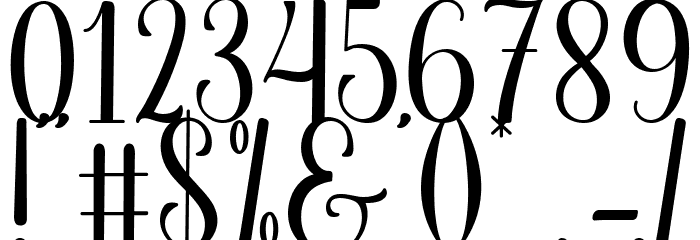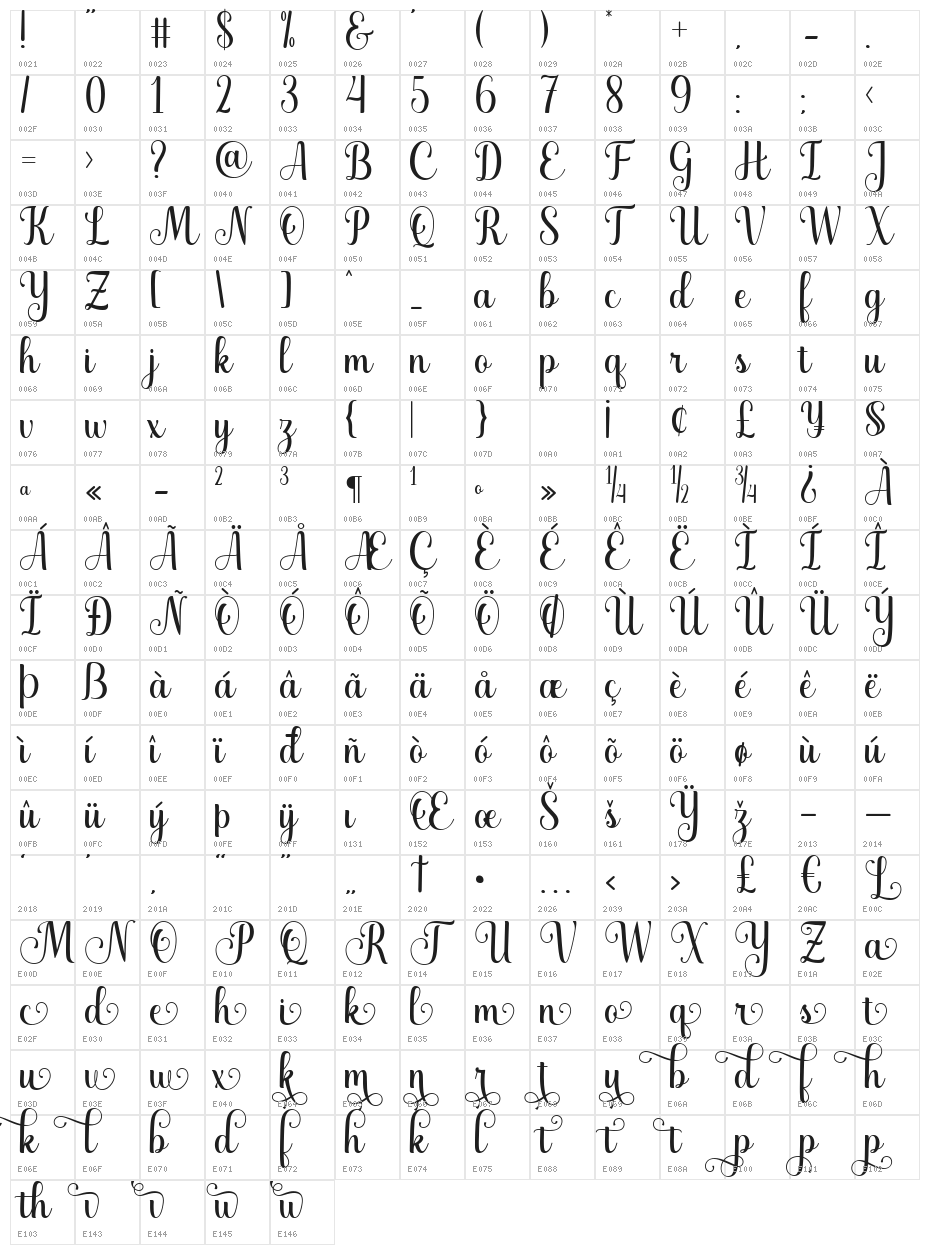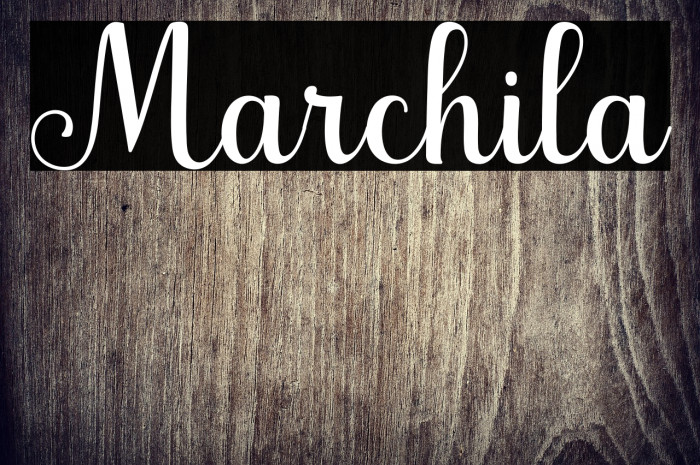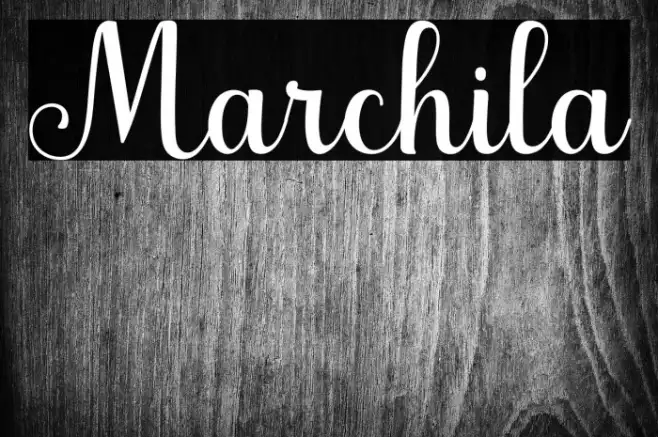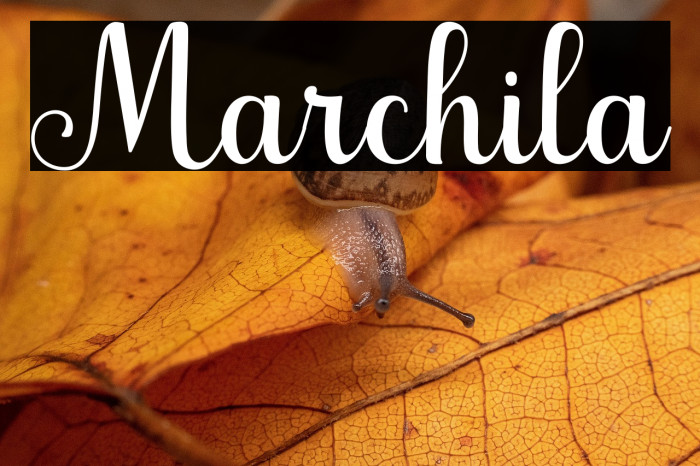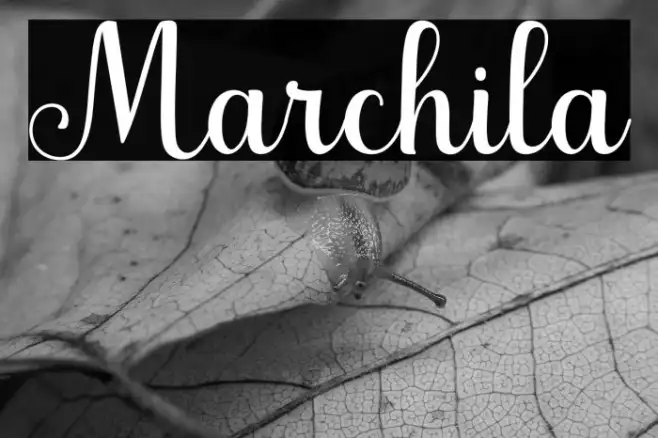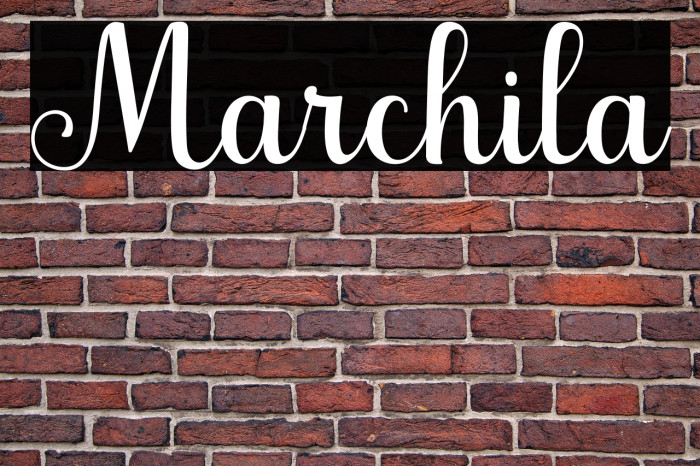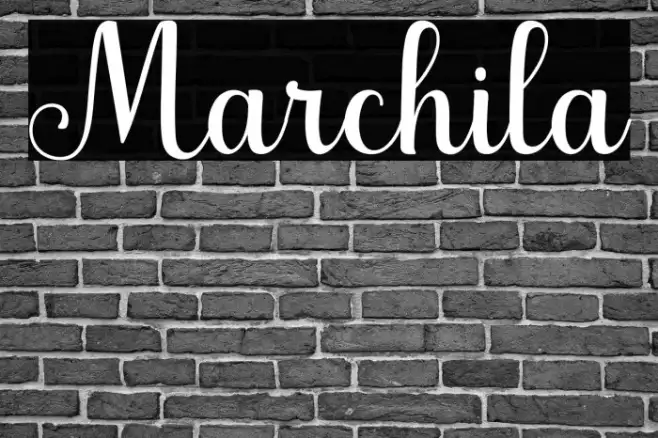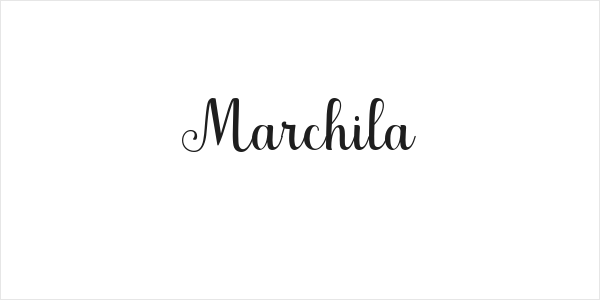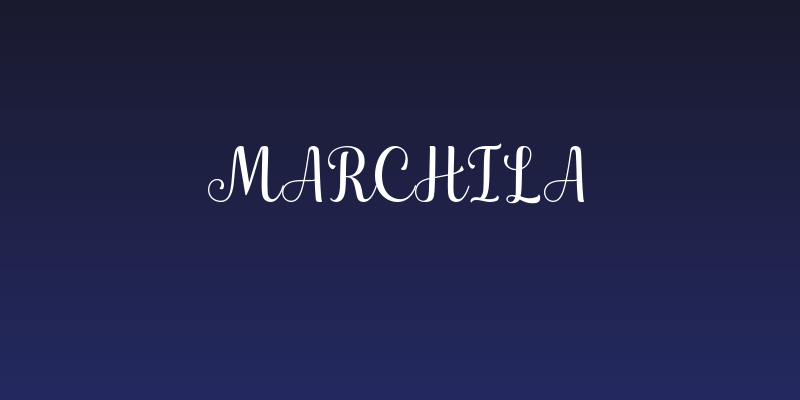
Marchila Font
Marchila Description
This font features a charming and elegant script style with a playful yet sophisticated flair. The uppercase letters are adorned with delicate swirls and loops, giving them a whimsical touch. The lowercase letters maintain a smooth, flowing appearance, enhancing readability while retaining a sense of grace. Numbers and special characters are designed with a consistent style, ensuring a cohesive look across all text. The font's overall design is perfect for adding a personal and artistic touch to any project.